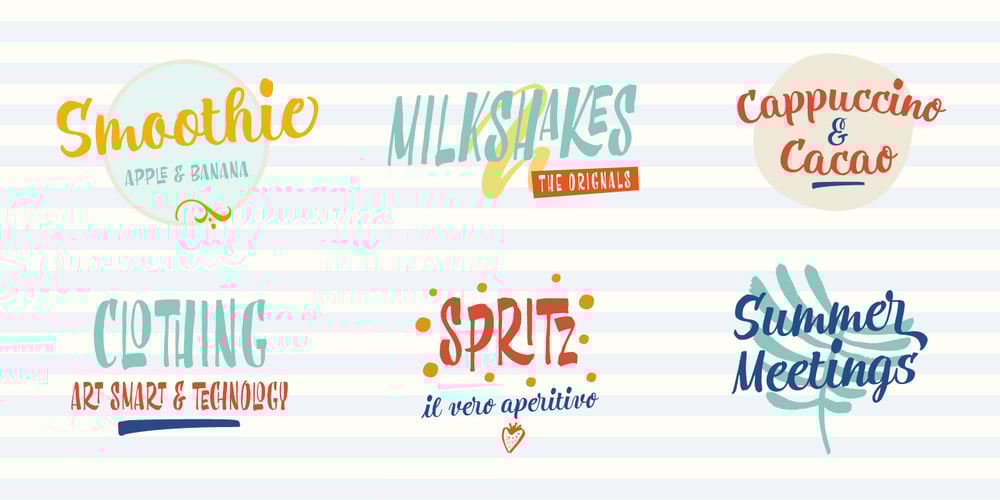
Beach Please Font Family was designed by Giuseppe Salerno, Paco González and published by Resistenza. Beach Please contains 7 styles and family package options. Beach Please, a delightful suite of handwritten fonts crafted with pointed brush strokes and watercolor inspiration. This versatile font family comprises seven unique styles: Beach Please Regular and Slanted, Caps, Wide, Caps Slanted, Wide Slanted, and Icons. Each font brings its own flair to the table, catering to various design needs with its distinct characteristics.At the heart of the collection lies Beach Please Regular Script, a charming and laid-back brush font reminiscent of classic sign painting. Infused with a sense of relaxation and tenderness, this font adds a playful touch to any project, accentuated by exaggerated curves and lively punctuation marks. Dive deeper, and you’ll discover a plethora of alternates and swashes tucked away in the OpenType features, allowing for endless creative possibilities.For a bold statement, turn to Beach Please Caps and Wide. These fonts exude an unconventional charm, thanks to their reversed contrast on select letters. This unique feature breathes new life into headlines, captivating attention with its quirky appeal. Whether you opt for the Caps or Wide version, you’re guaranteed a fresh and eye-catching typographic experience. Plus, with an abundance of ligatures, your text gains an authentic handwritten feel, perfect for adding character to your designs.When space is limited, Beach Please Wide steps in as the ideal choice. Designed to shine in smaller sizes, this font retains its distinctive charm without sacrificing legibility. Its generous ligatures ensure smooth transitions between characters, resulting in seamless text flow and a natural handwritten appearance.But the Beach Please family doesn’t stop there. Enter Beach Please Icons, a delightful assortment of hand-drawn illustrations evoking the essence of summer. From sun-kissed beaches to refreshing cocktails, these whimsical icons infuse your designs with warmth and personality. Additionally, decorative strokes allow for seamless integration with text, empowering you to craft stunning lettering compositions with ease.Whether you’re designing captivating headlines, crafting intricate letterings, or adding a touch of summer charm to your creations, Beach Please offers a versatile toolkit to bring your vision to life.More About Opentype Features: https://bit.ly/opentype-rsz